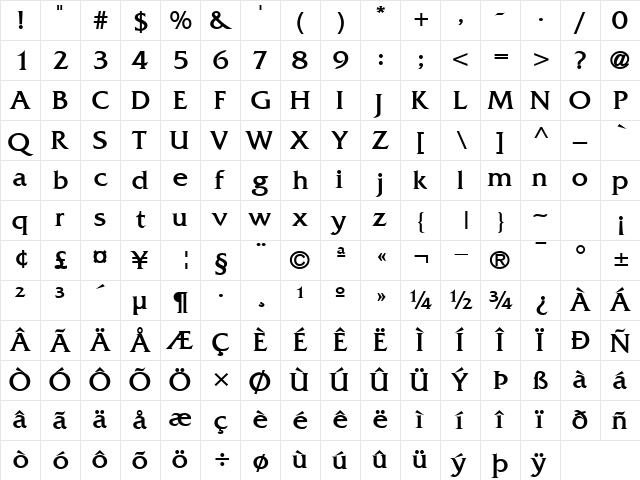
Alliance Black
Alliance Family
Alliance Black
Design Context for Alliance
Alliance is a composed and adaptable typeface that performs quietly and consistently across a wide range of design contexts.